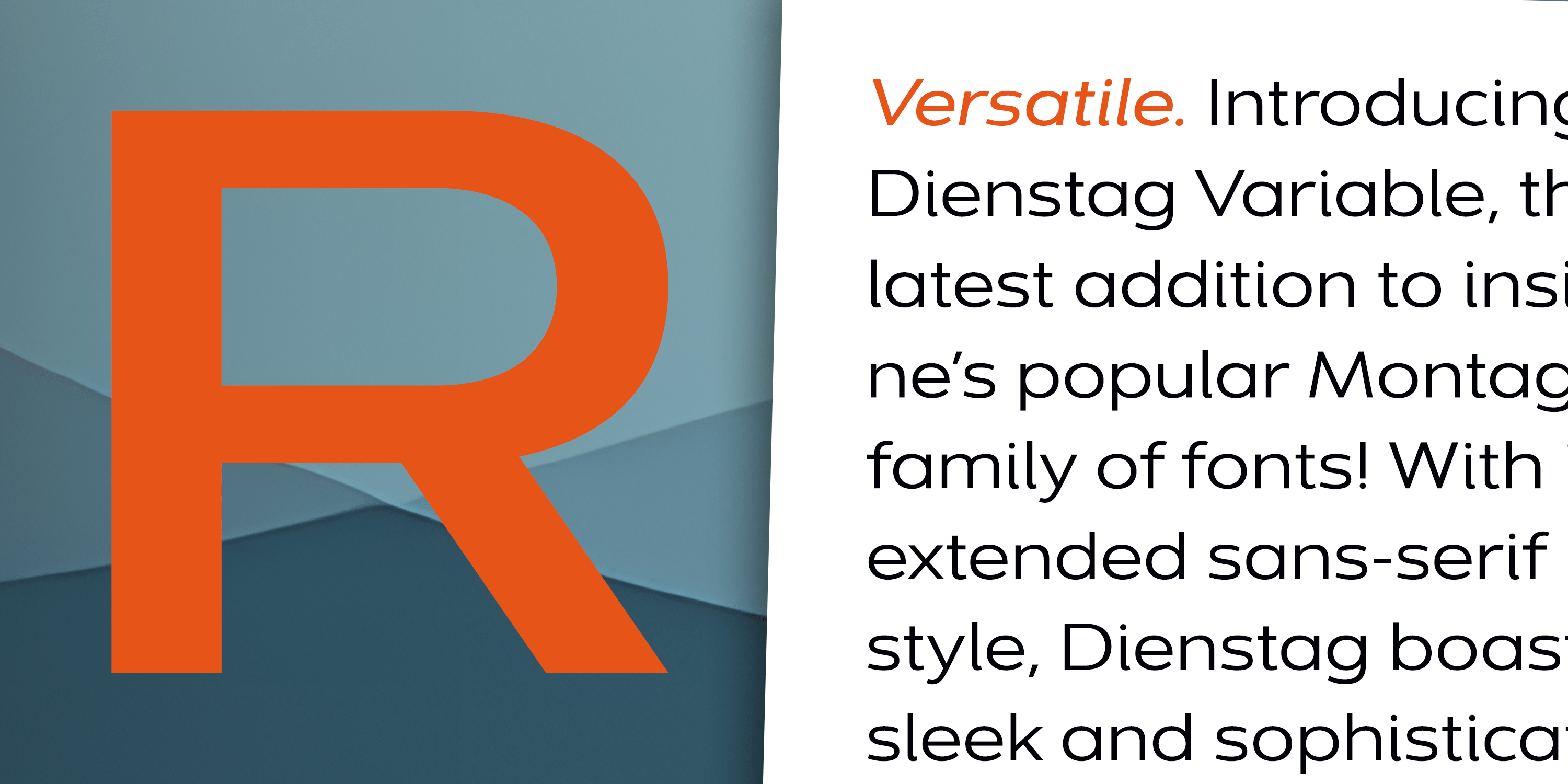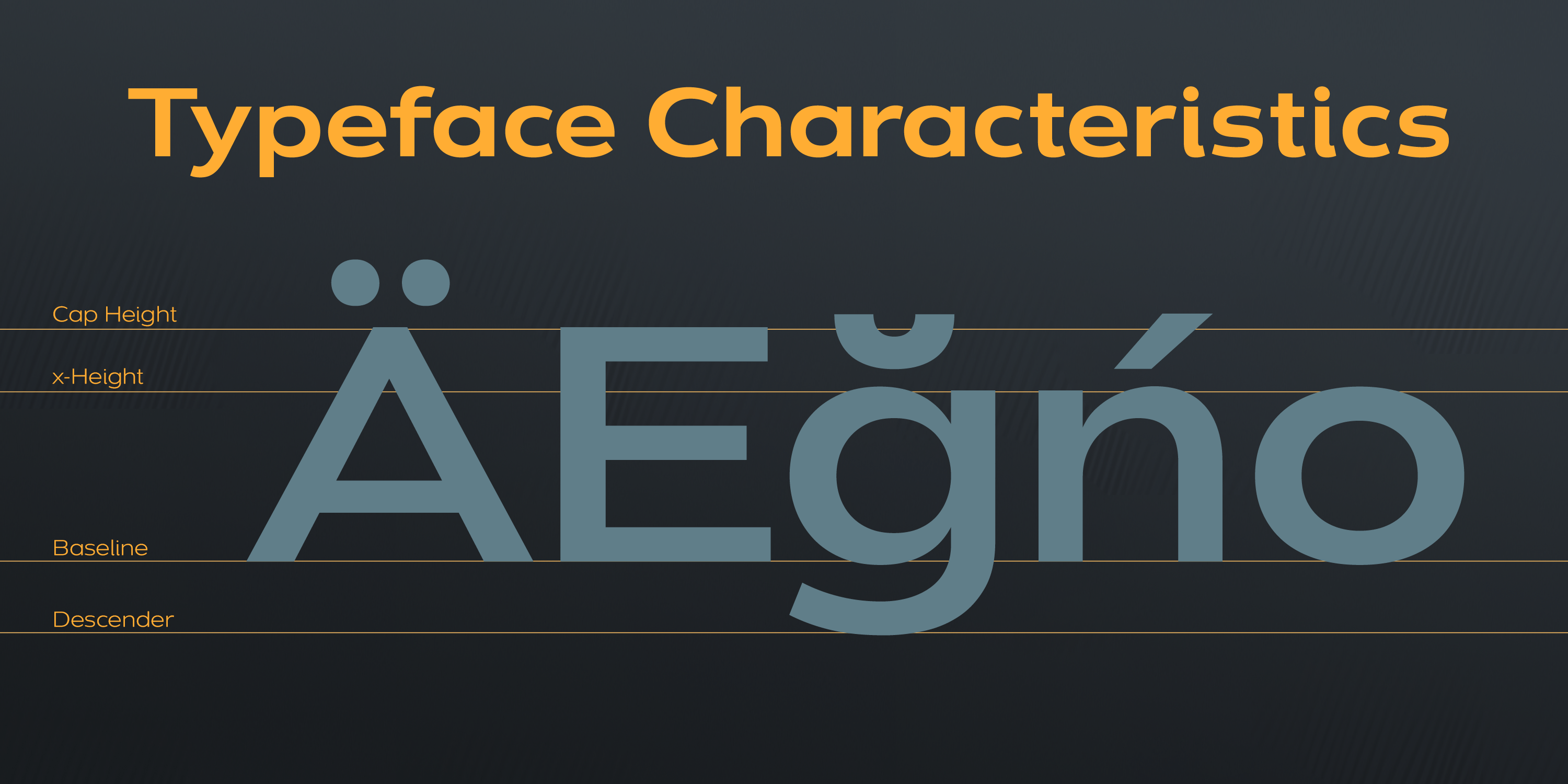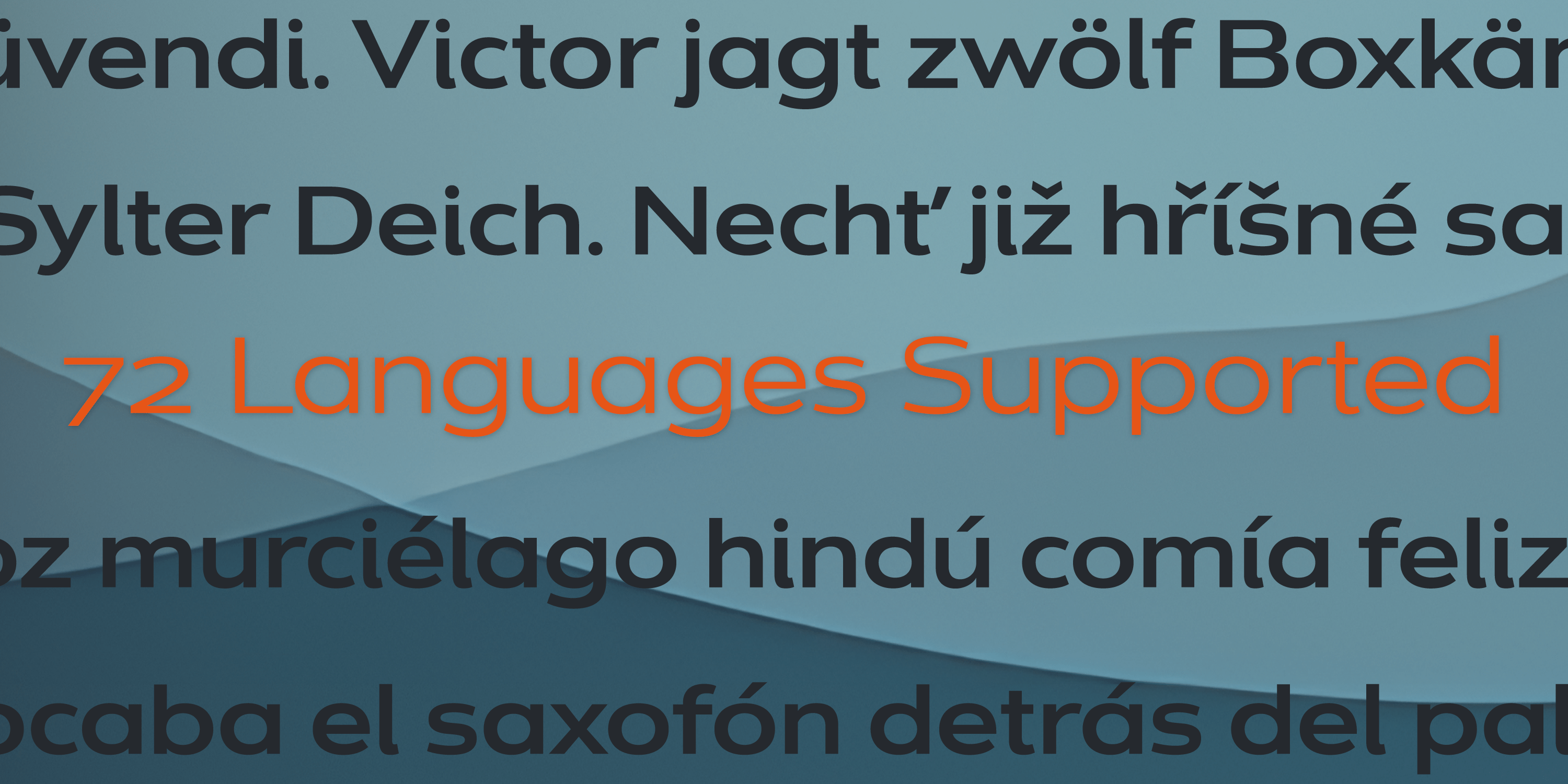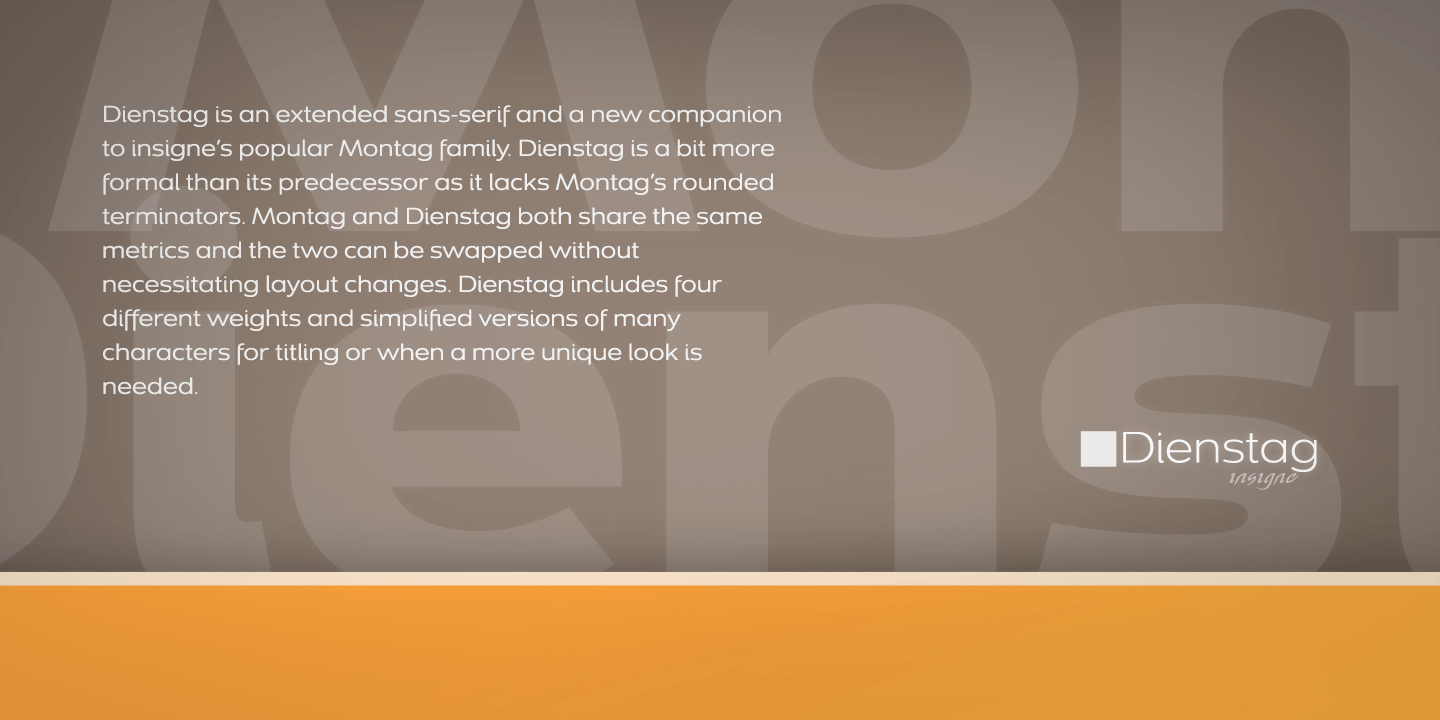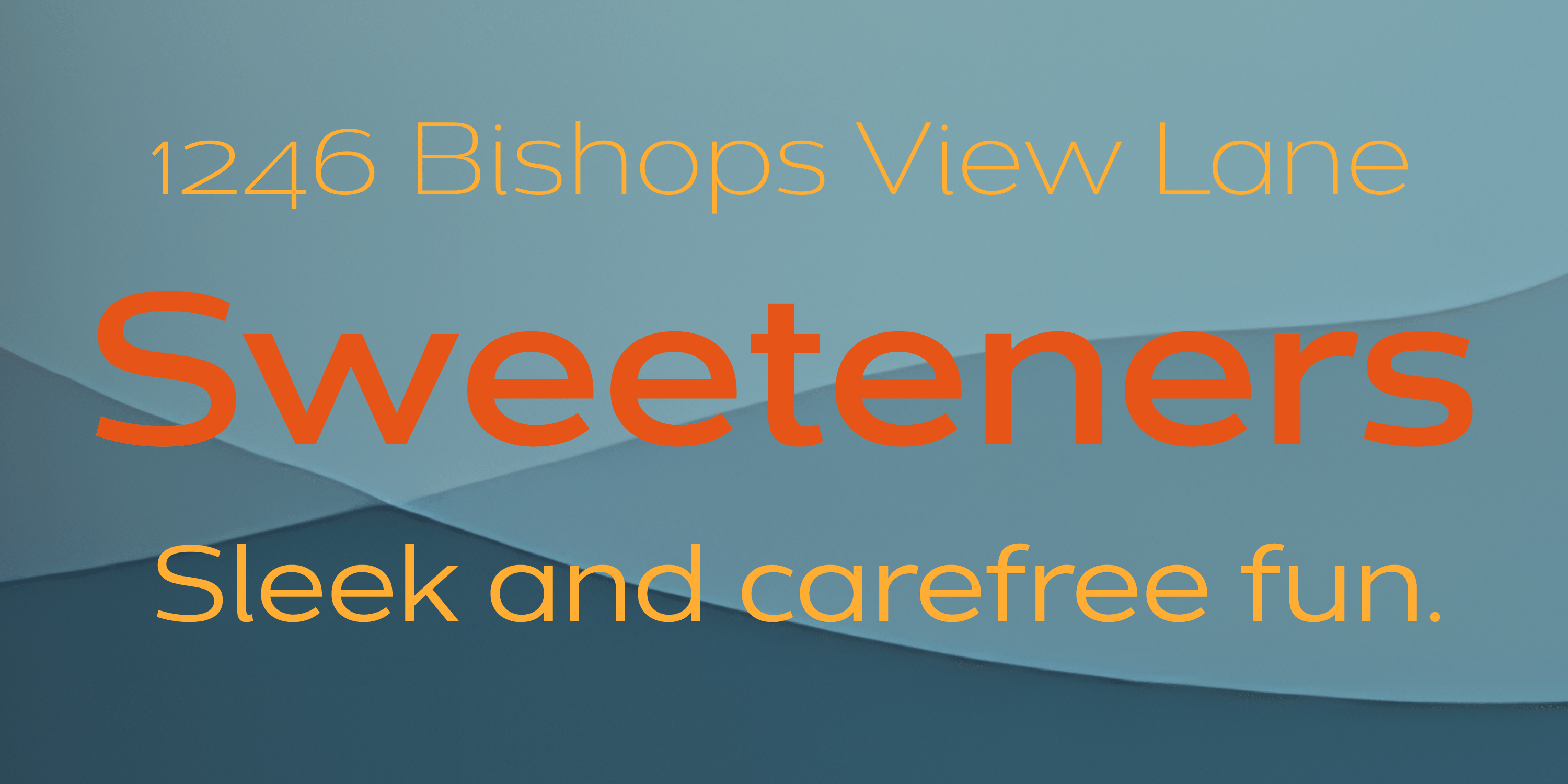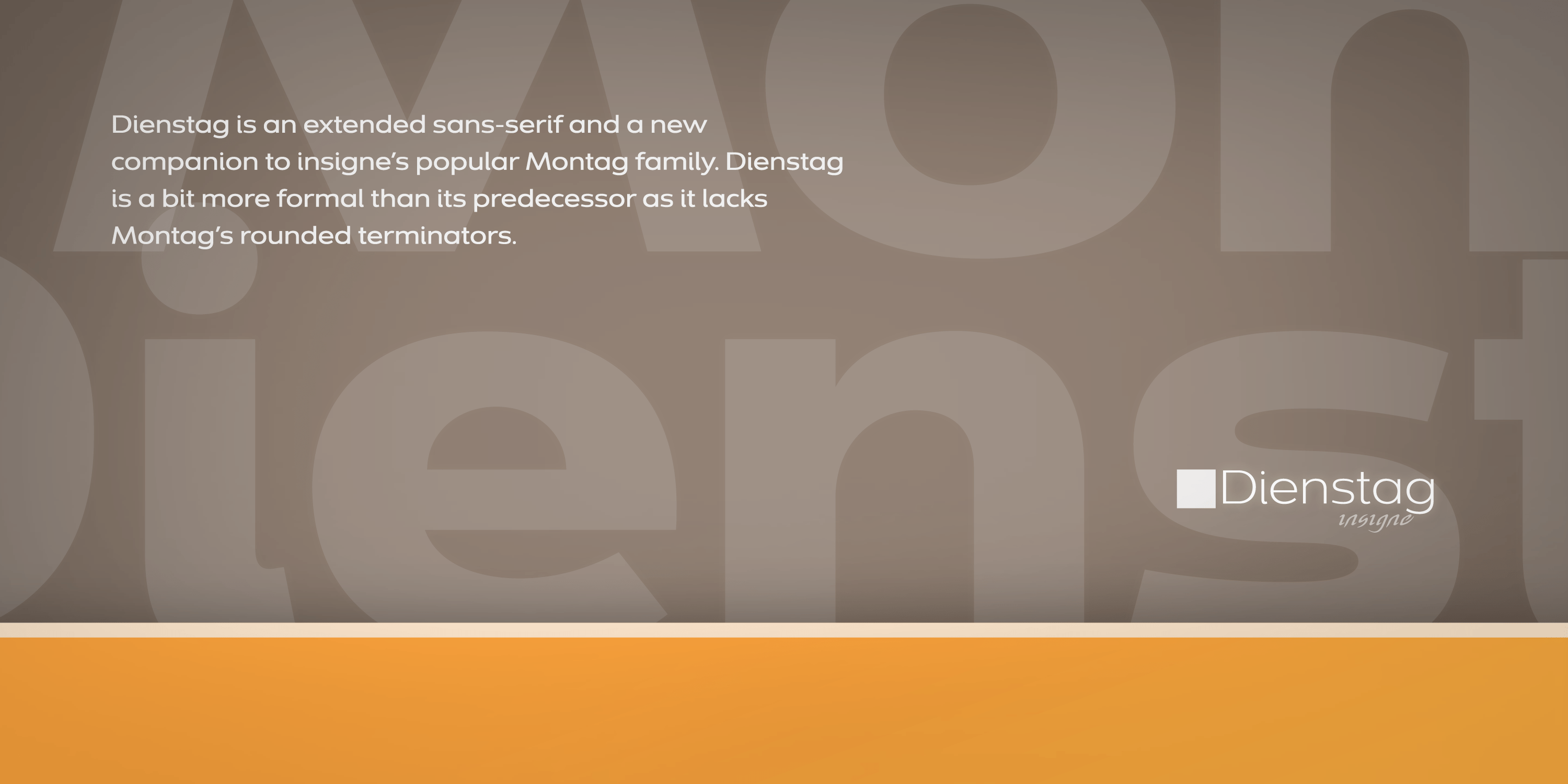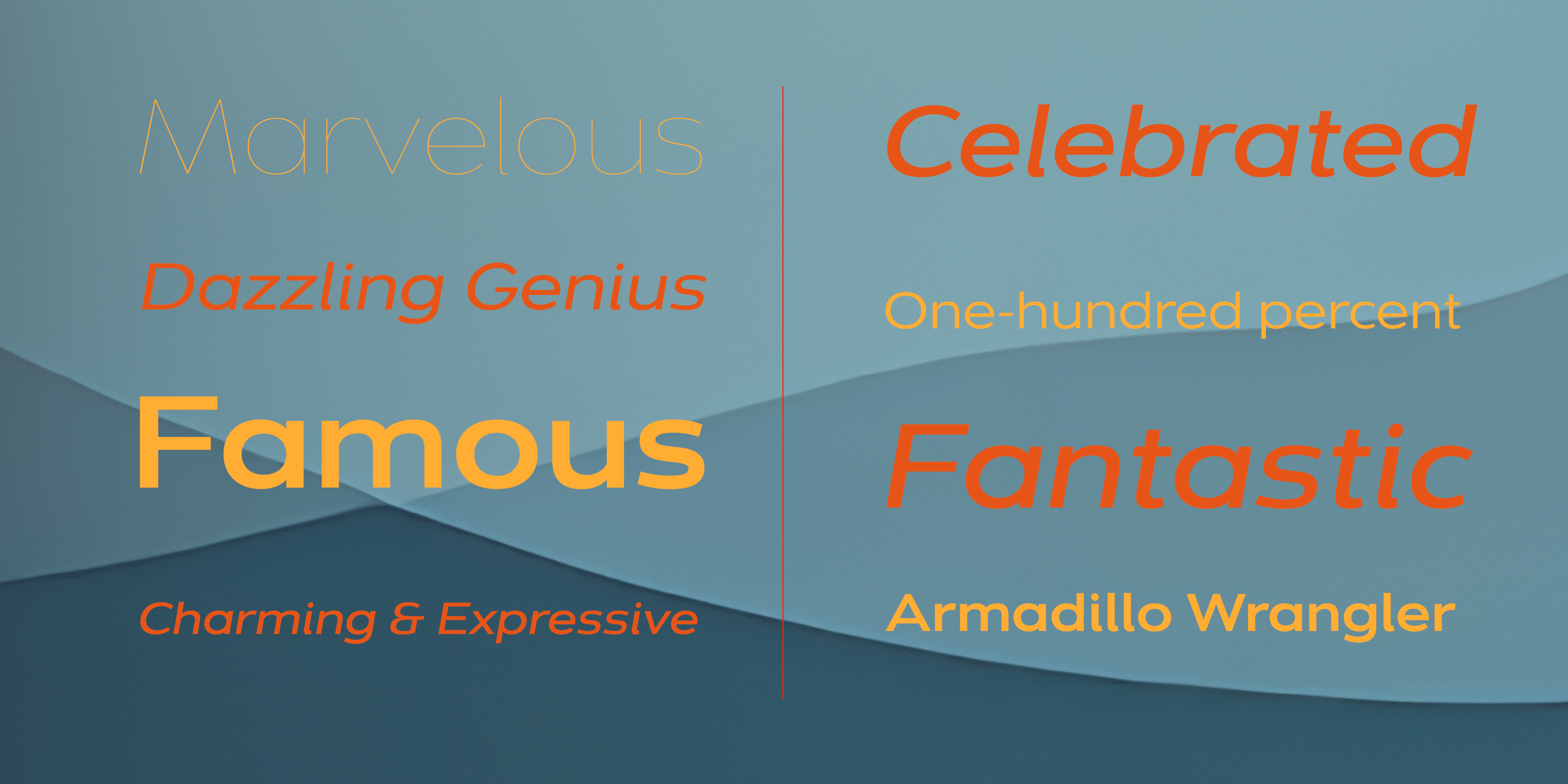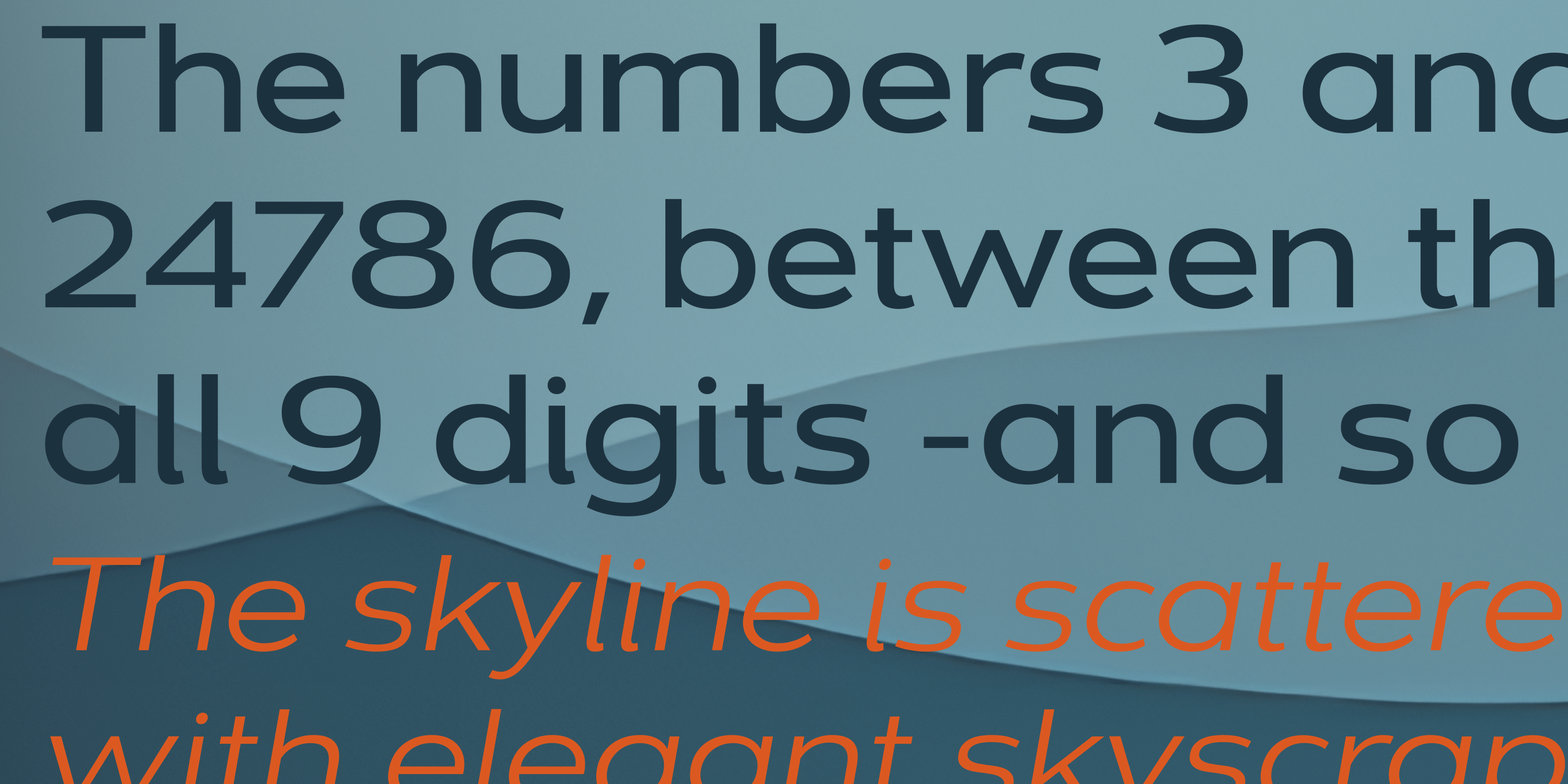
Dienstag
Font Family by Insigne
Dienstag is an extended sans-serif and a new companion to insigne's popular Montag family.
Dienstag is a bit more formal than its predecessor as it lacks Montag's rounded terminators. Dienstag originally included four different weights, and this was expanded to seven in 2010. OpenType features include simplified versions of many characters for titling or when a more unique look is needed. Be sure to check out the rest of the superfamily, including Montag, Mittwoch, and Donnerstag.